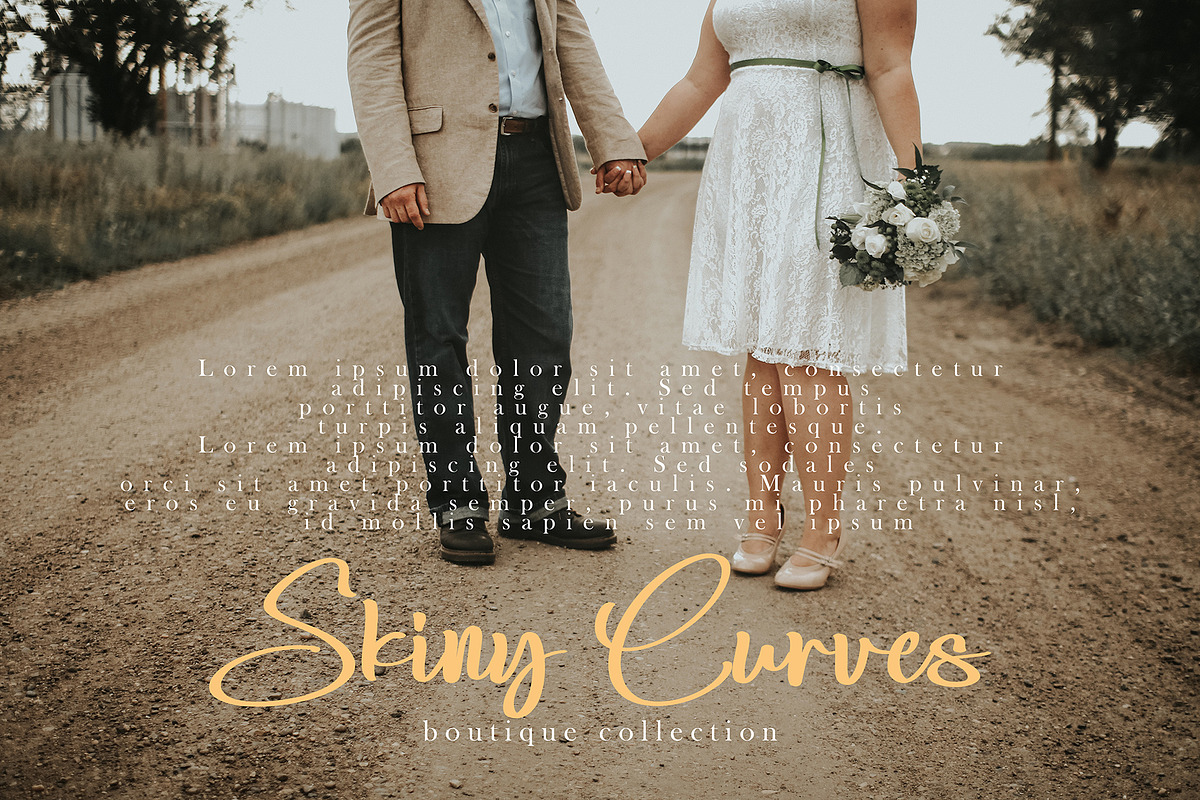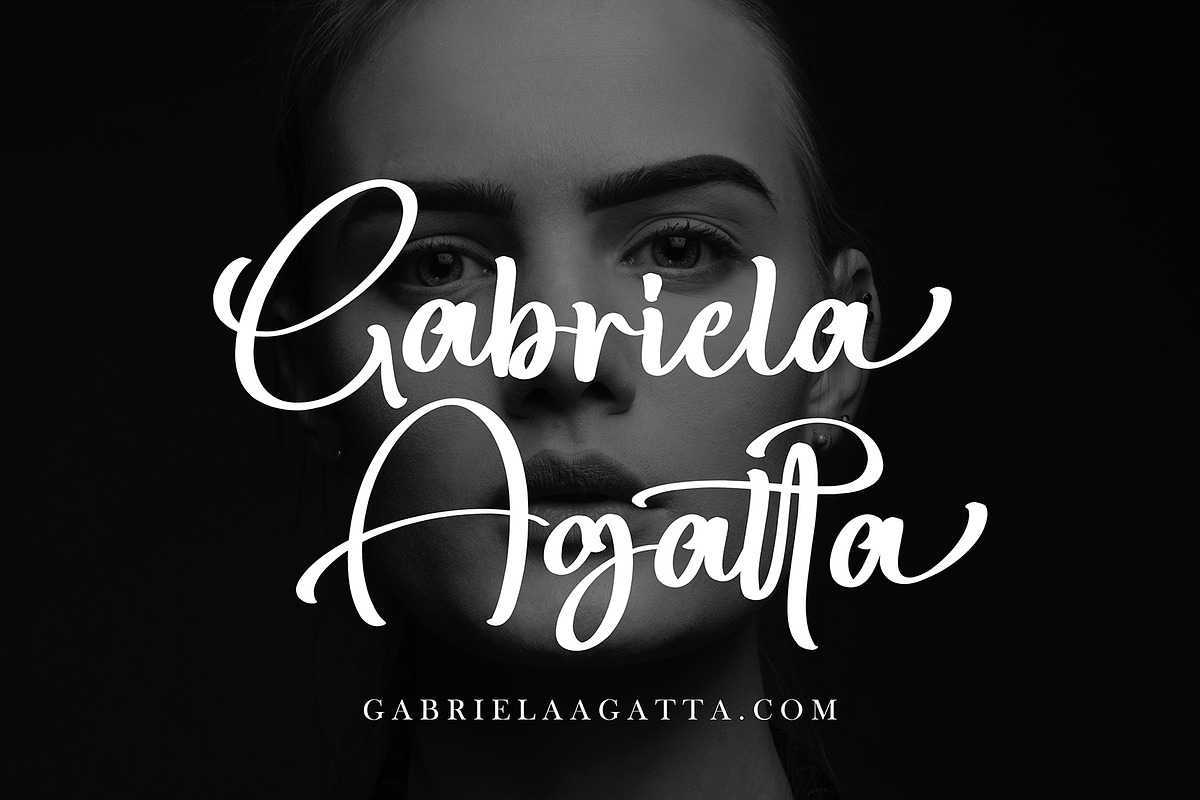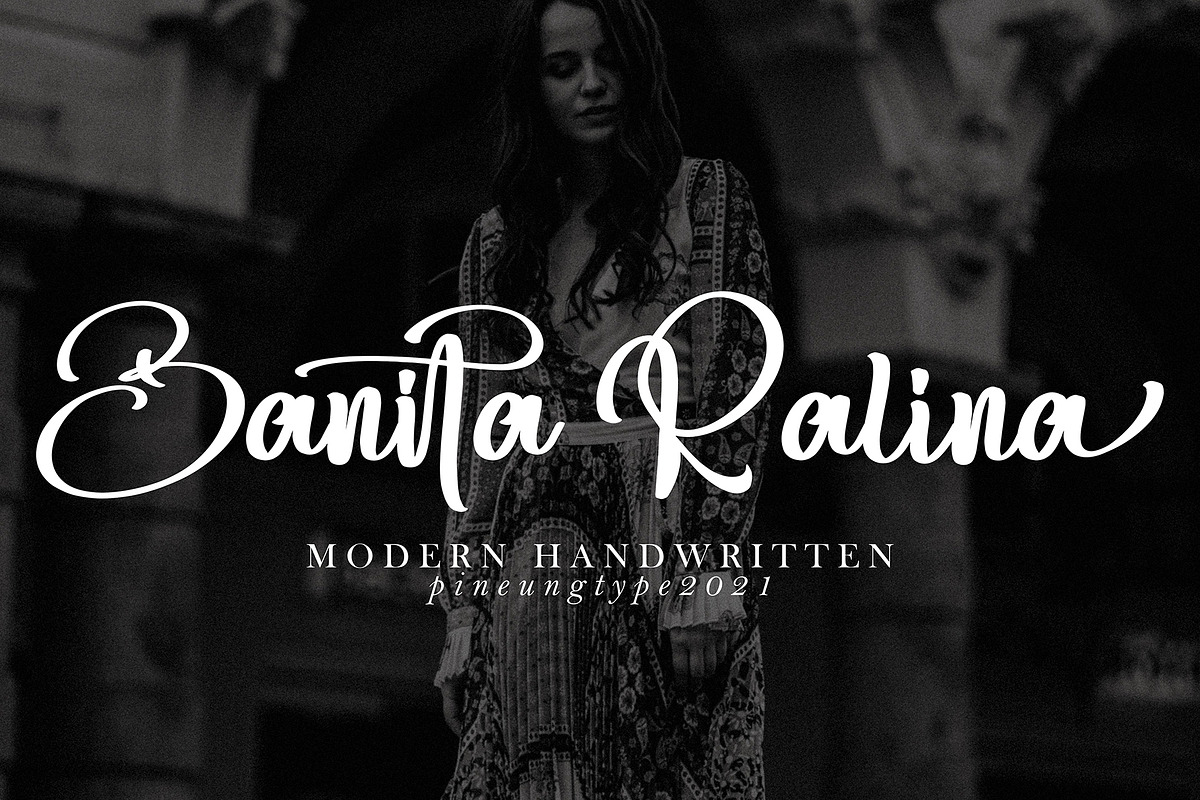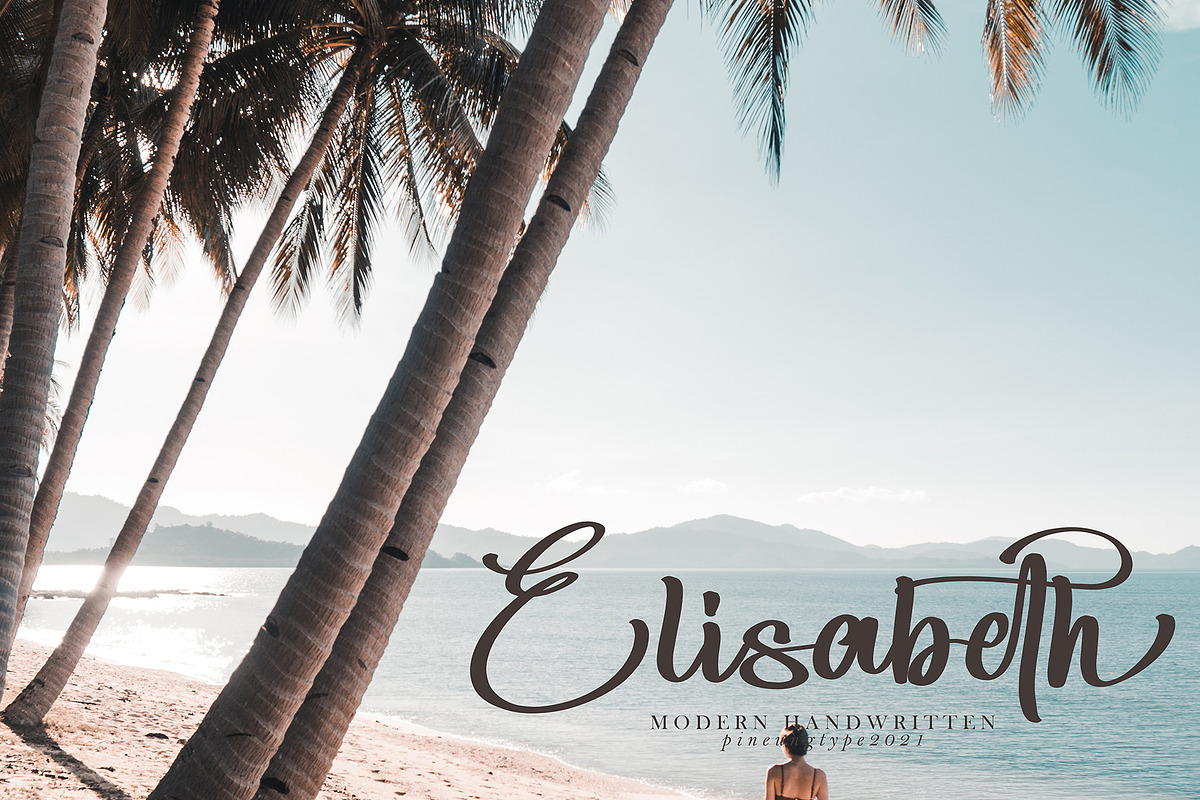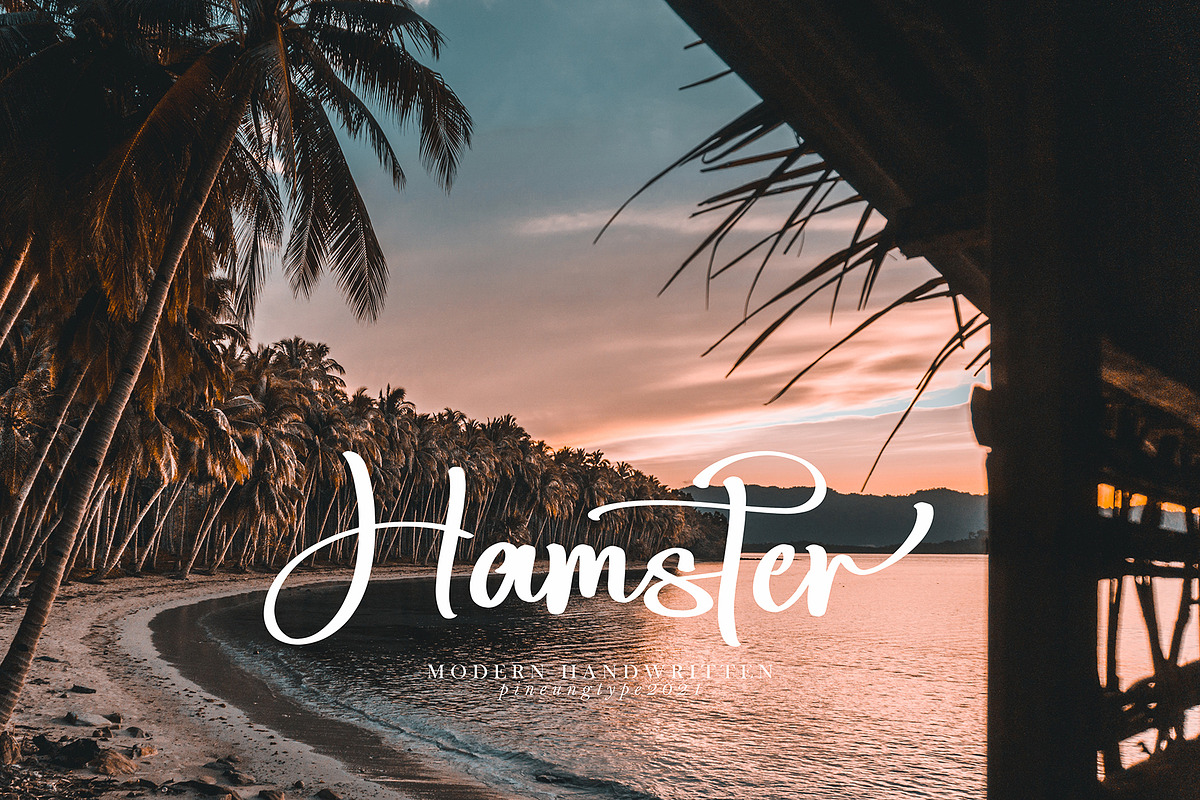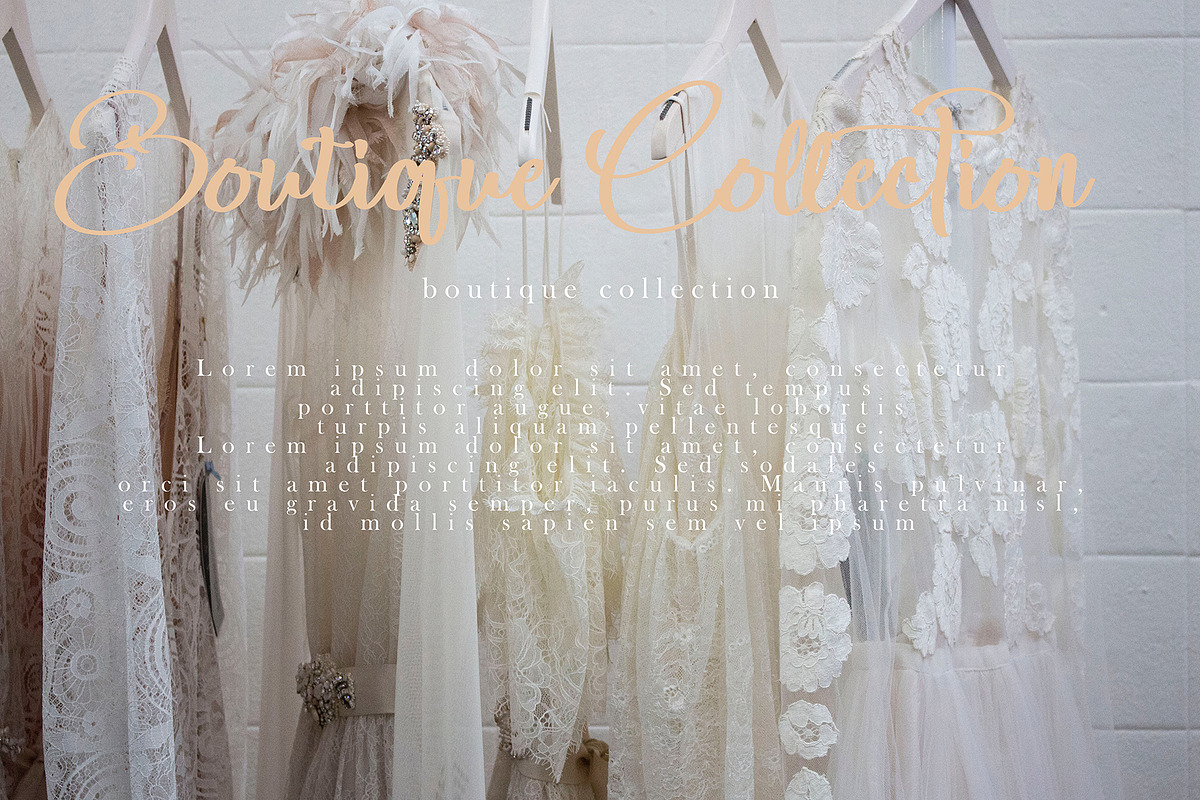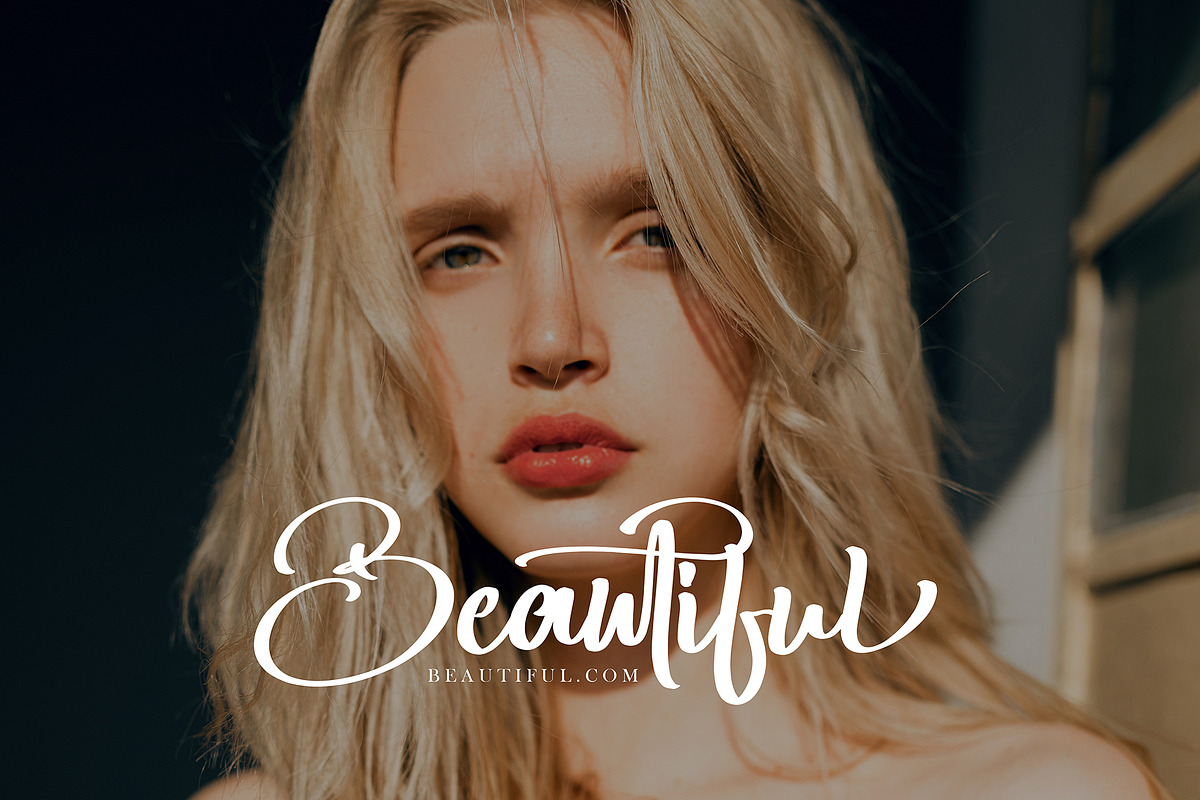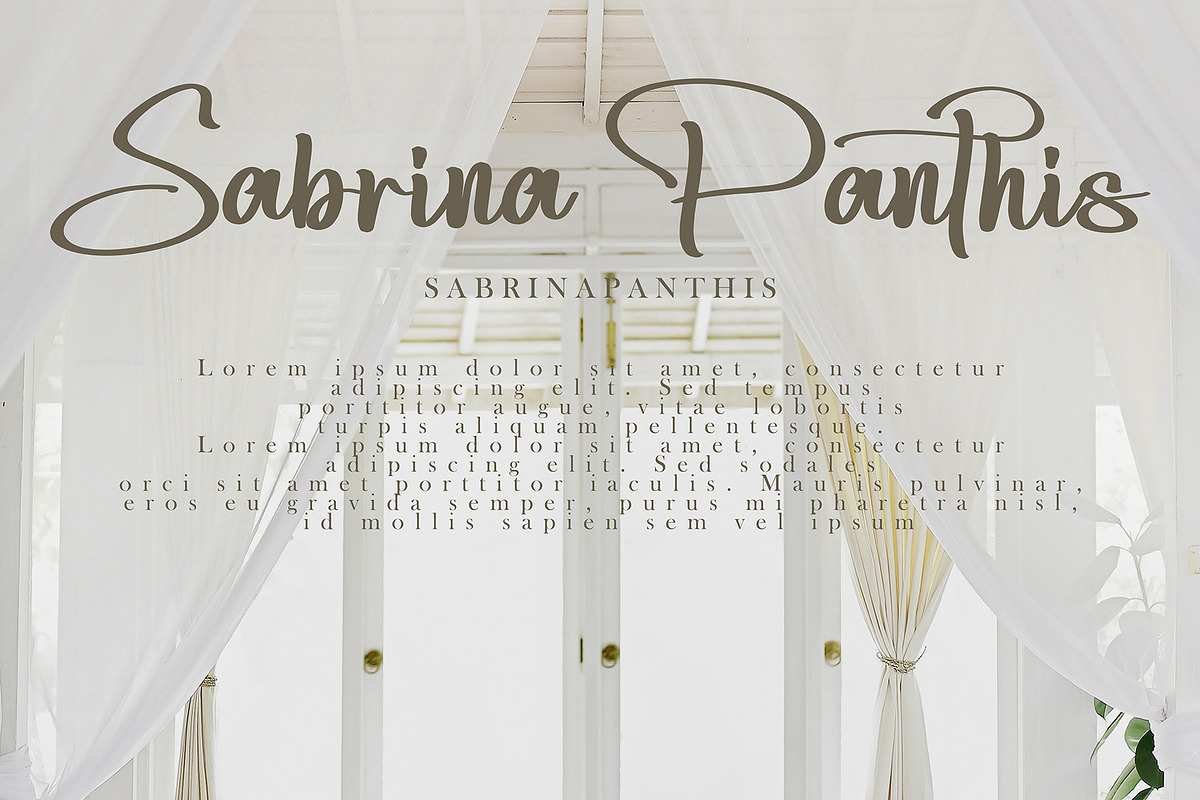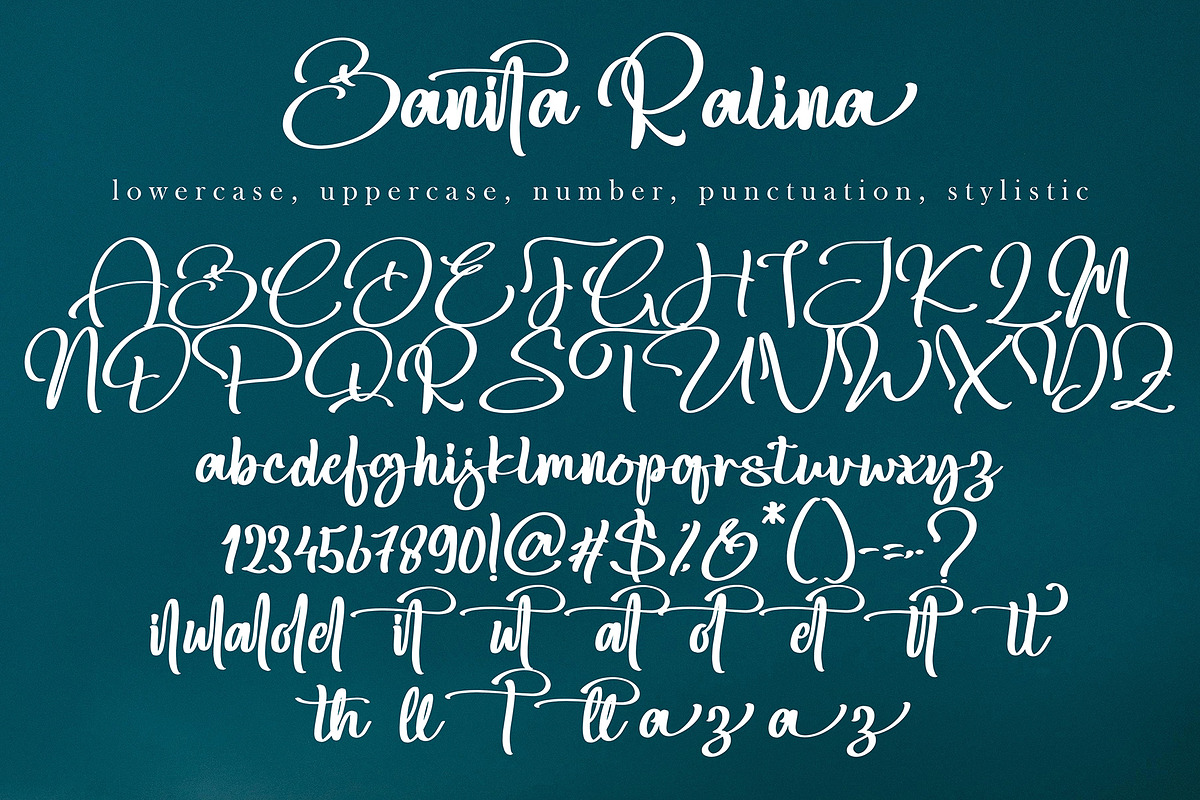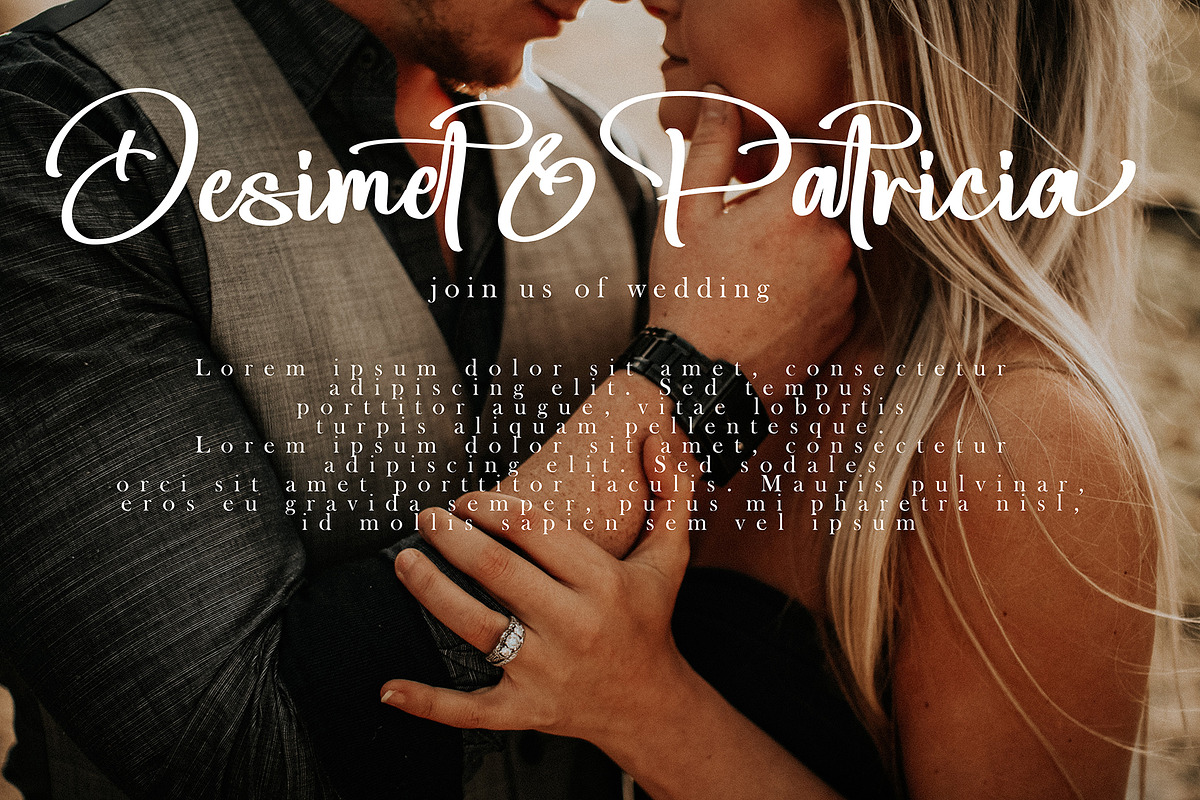
Banita Ralina
Banita Ralina font with new style, this font will perfect for many different project ex: quotes, logo, blog header, poster, banding, letter, invitation, stationery, etc...